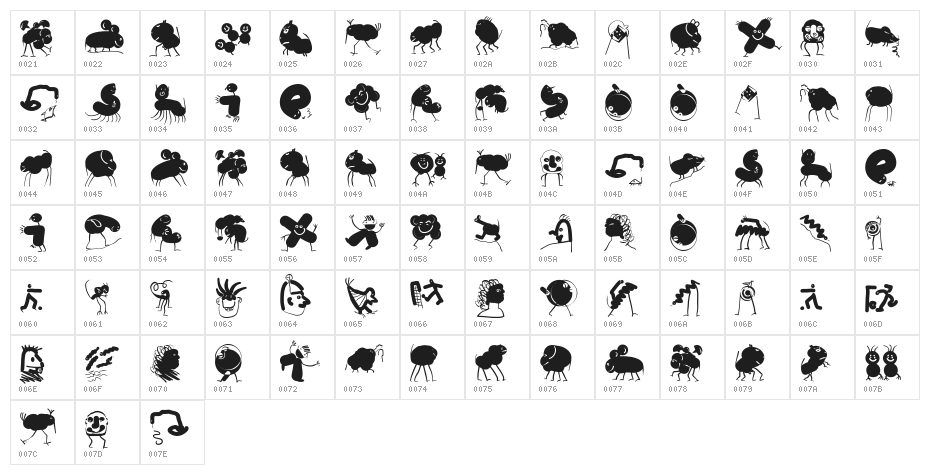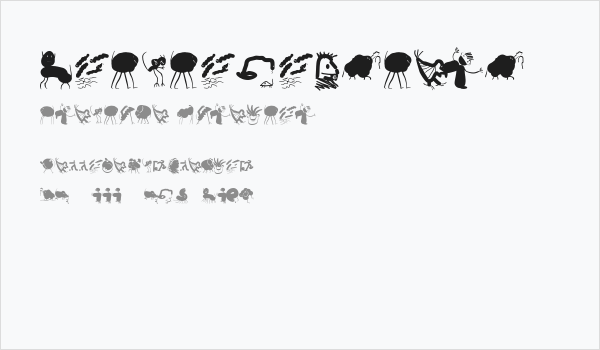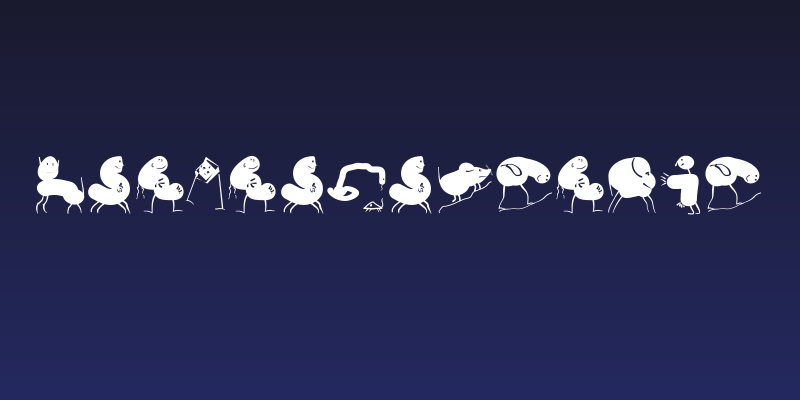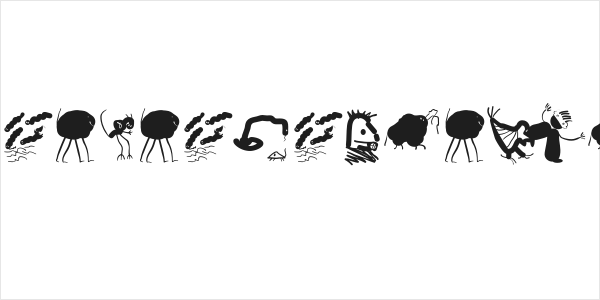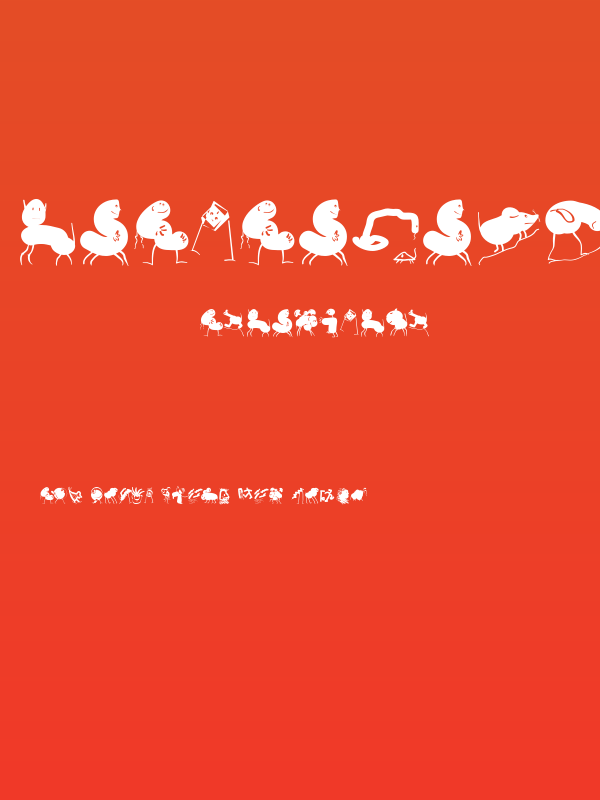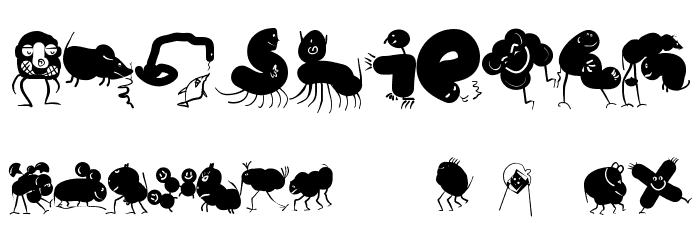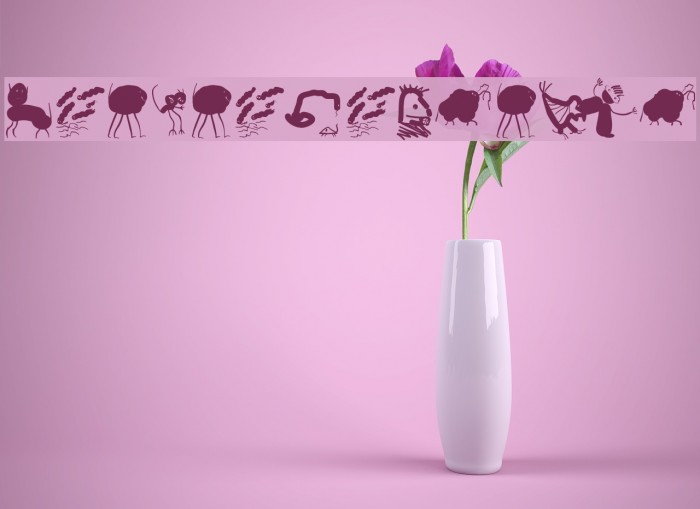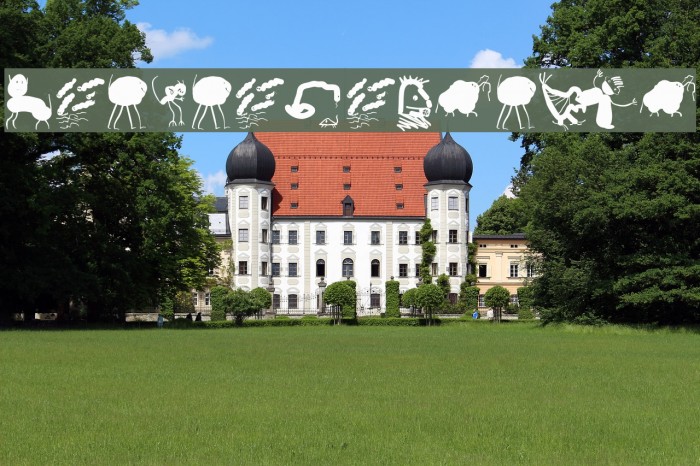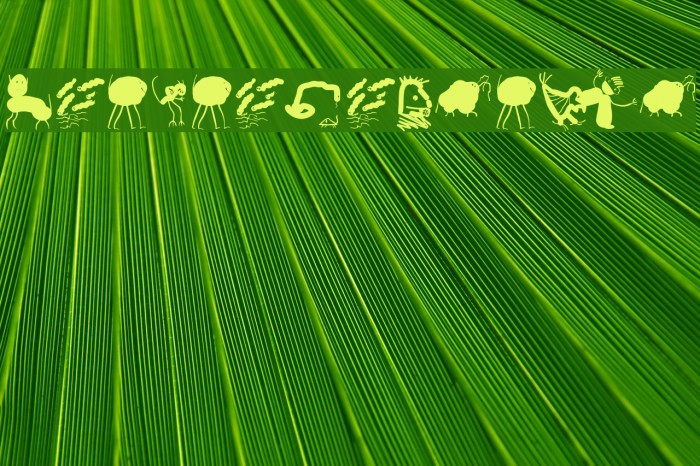
PotatoMonsters Font
| Caso d'uso | Logos, Posters, Creative Projects |
| Progetti proposti | Ideal for children's books, playful branding, creative posters, and any project requiring a fun and imaginative touch. |